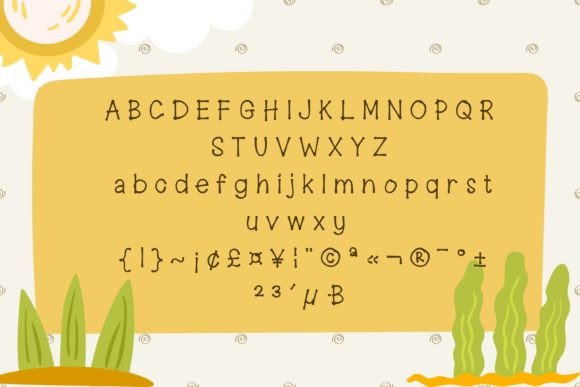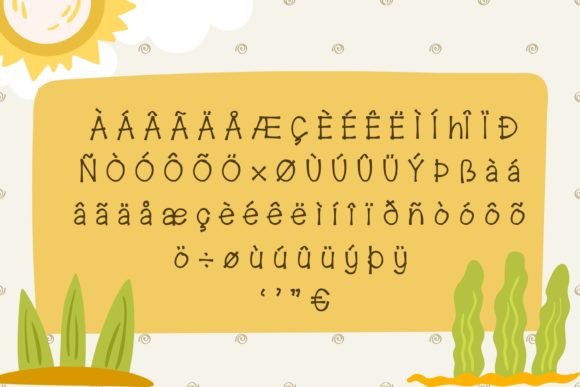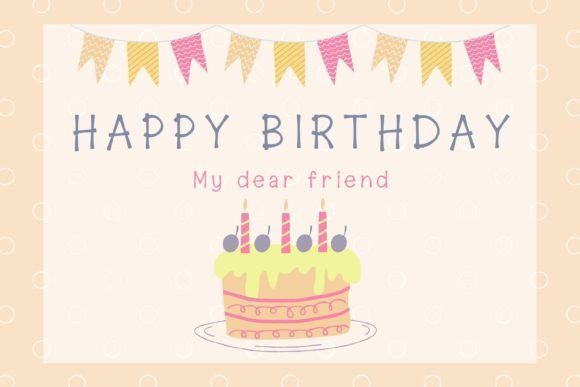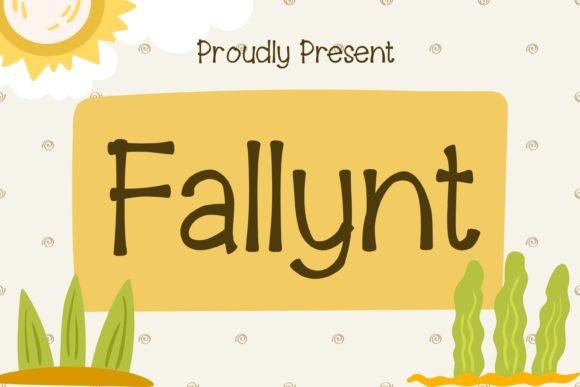
Fallynt Font: A Simple yet Unique Handwritten Font for Your Designs
Are you a designer or crafter looking for a font that can add a personal touch to your creations? Look no further than Fallynt Font, a simple and friendly handwritten font that’s perfect for a wide range of designs. In this article, we’ll explore the features and benefits of Fallynt Font, and show you how it can elevate your designs to the next level.
The Characteristics of Fallynt Font
Fallynt Font is a handwritten font that’s characterized by its natural and unique style. It’s a simple font that’s easy to read and understand, making it perfect for designs that require a personal touch. The font has a friendly and approachable feel to it, which makes it ideal for designs that need to connect with the audience on a personal level.
The Benefits of Using Fallynt Font
So, why should you use Fallynt Font in your designs? Here are just a few benefits of this amazing font:
- Unique Style: Fallynt Font has a unique style that’s unlike any other font out there. Its natural and handwritten feel makes it stand out from the crowd and adds a personal touch to your designs.
- Versatility: Fallynt Font is incredibly versatile and can be used in a wide range of designs, from branding and packaging to scrapbooking and journaling.
- Easy to Read: Despite its handwritten feel, Fallynt Font is incredibly easy to read and understand, making it perfect for designs that require a clear and concise message.
- Friendliness: The font has a friendly and approachable feel to it, which makes it ideal for designs that need to connect with the audience on a personal level.
How to Use Fallynt Font in Your Designs
Using Fallynt Font in your designs is easy. Here are a few tips to get you started:
- Pair it with Other Fonts: Fallynt Font pairs well with other fonts, so don’t be afraid to experiment with different combinations. You can use it as a headline font and pair it with a sans-serif font for the body text.
- Use it for Headlines and Titles: Fallynt Font is perfect for headlines and titles, as it adds a personal touch and creates a focal point in your design.
- Add it to Your Digital Designs: Fallynt Font can be used in a wide range of digital designs, from social media graphics to blog posts and website headers.
- Experiment with Different Colors: Fallynt Font looks great in a variety of colors, so don’t be afraid to experiment and find the perfect color scheme for your design.
Who Can Benefit from Fallynt Font?
Fallynt Font is perfect for a wide range of designers and crafters, including:
- Graphic Designers: Graphic designers can use Fallynt Font in a wide range of designs, from branding and packaging to social media graphics and website headers.
- Scrapbookers: Scrapbookers can use Fallynt Font to add a personal touch to their pages and create beautiful journaling.
- Journalers: Journalers can use Fallynt Font to create beautiful and inspiring journal pages.
- Crafters: Crafters can use Fallynt Font to create a wide range of crafts, from cards and invitations to DIY projects and crafts.
| Font Name | Fallynt Font |
| Author | nuraisyahamalia1729 |
In conclusion, Fallynt Font is a simple and friendly handwritten font that’s perfect for a wide range of designs. Its natural and unique style makes it incredibly fitting to a large pool of designs, and its versatility and ease of use make it a must-have for designers and crafters. Whether you’re a graphic designer, scrapbooker, or crafter, Fallynt Font is sure to become a favorite in your design arsenal.